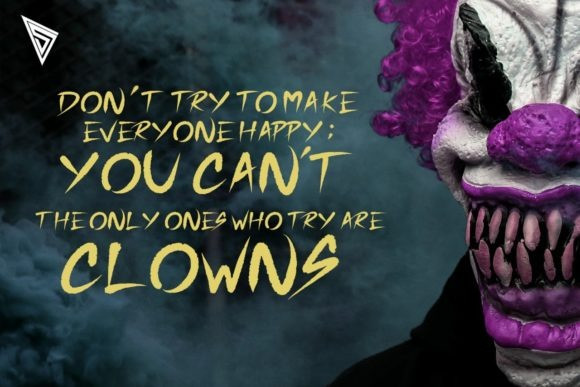
Cursed Parade Brush Font is a rough textured and street styled display font. This font is suitable for designs such as t-shirts, sportswear, logos, advertisements, clothing, and more.
Designer Name: | Senekaligrafi Font |
Classification: | Brush Fonts, Display Fonts |
Cursed Parade